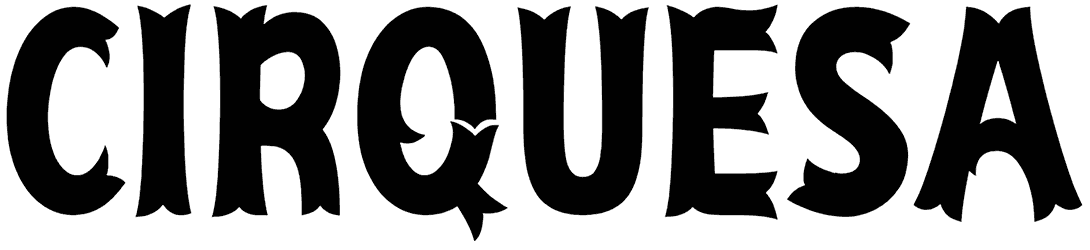
Cirquesa Font
Some fonts are made for a specific reason, like Cirquesa. This is a circus font with curly edges that are like a clown’s hat to create this effect, which is a useful font for so many artworks, such as flyers, posters, amusement parks, circus billboards, etc.
Designed by: 7NTypes